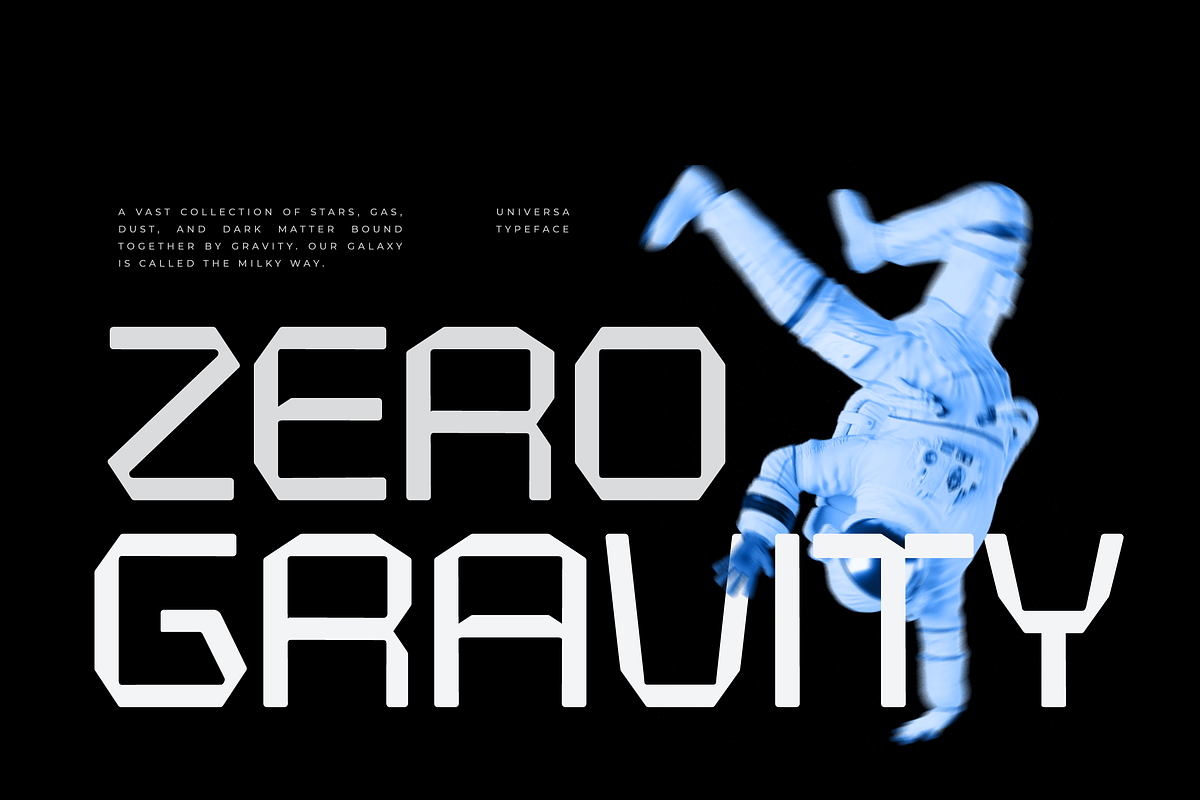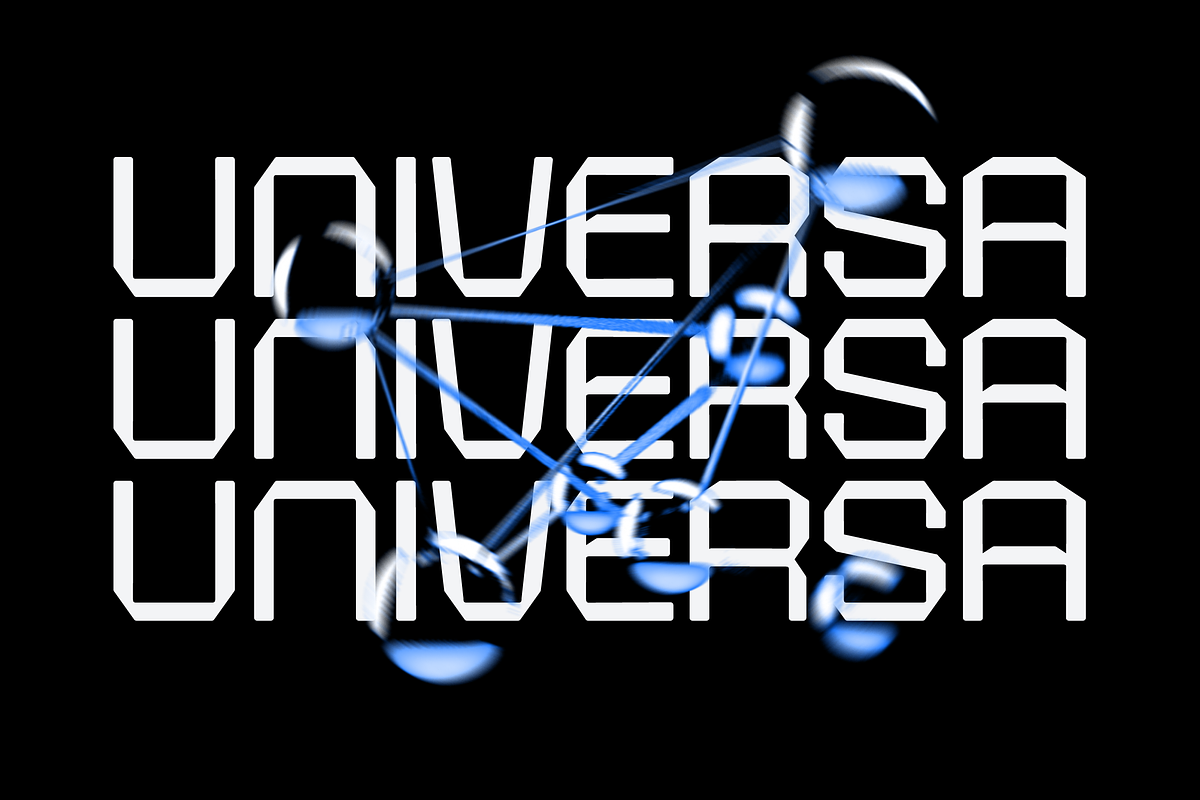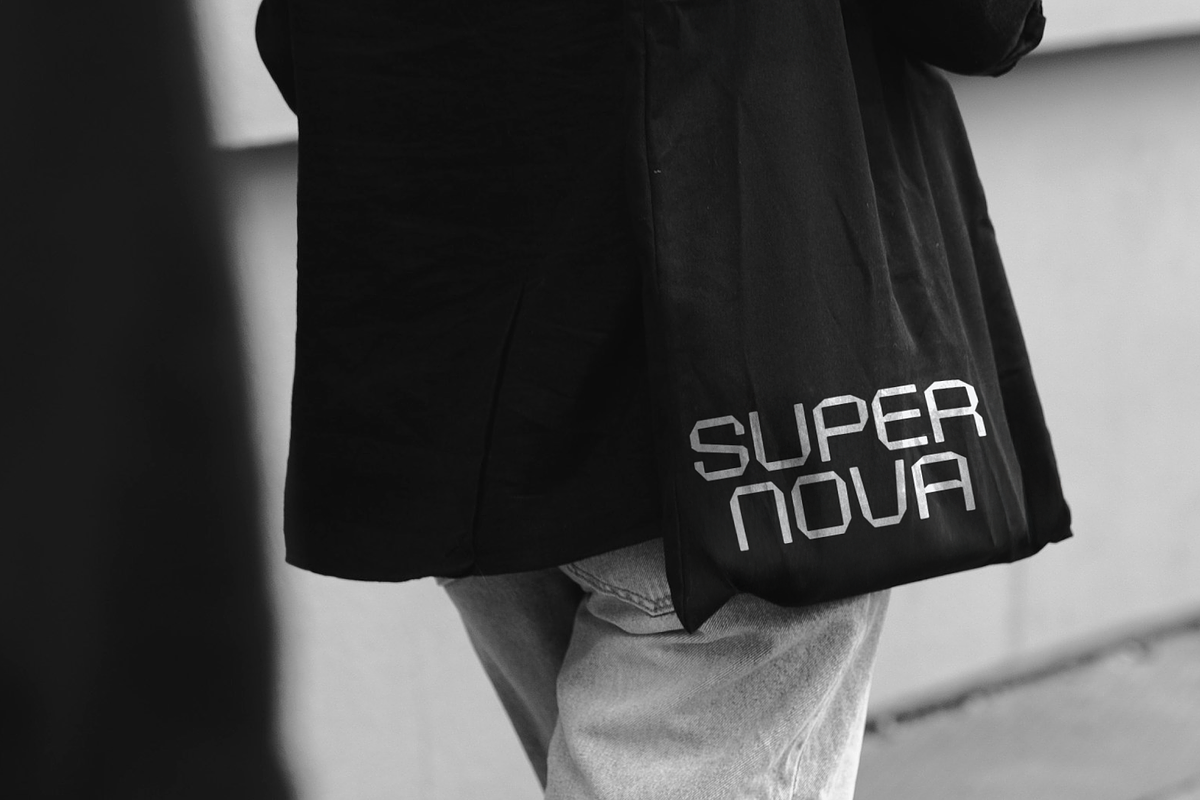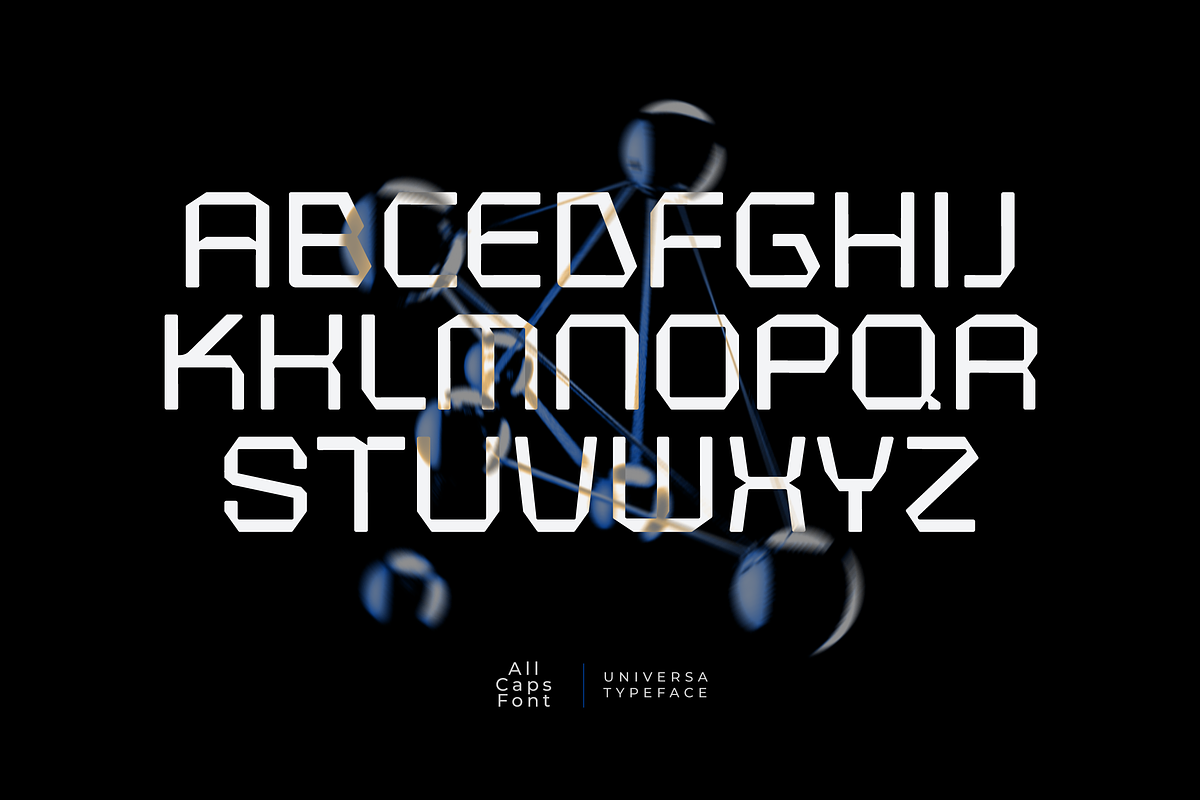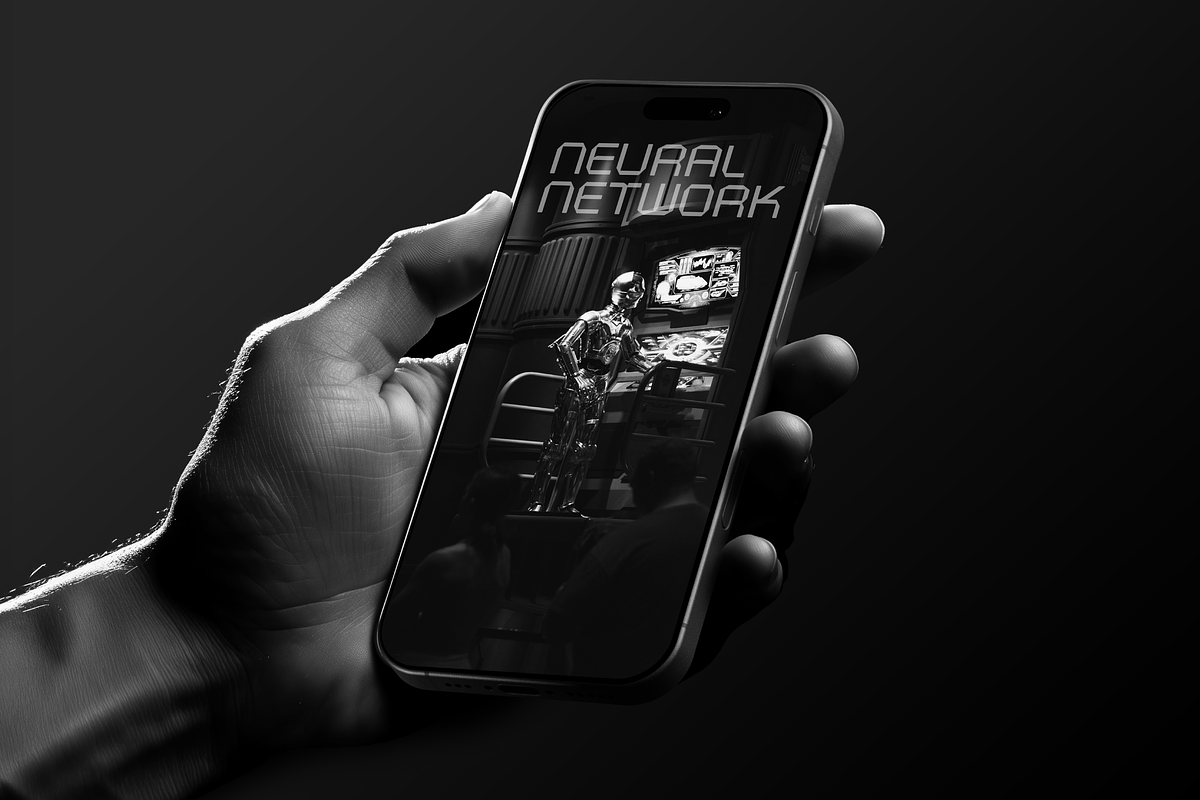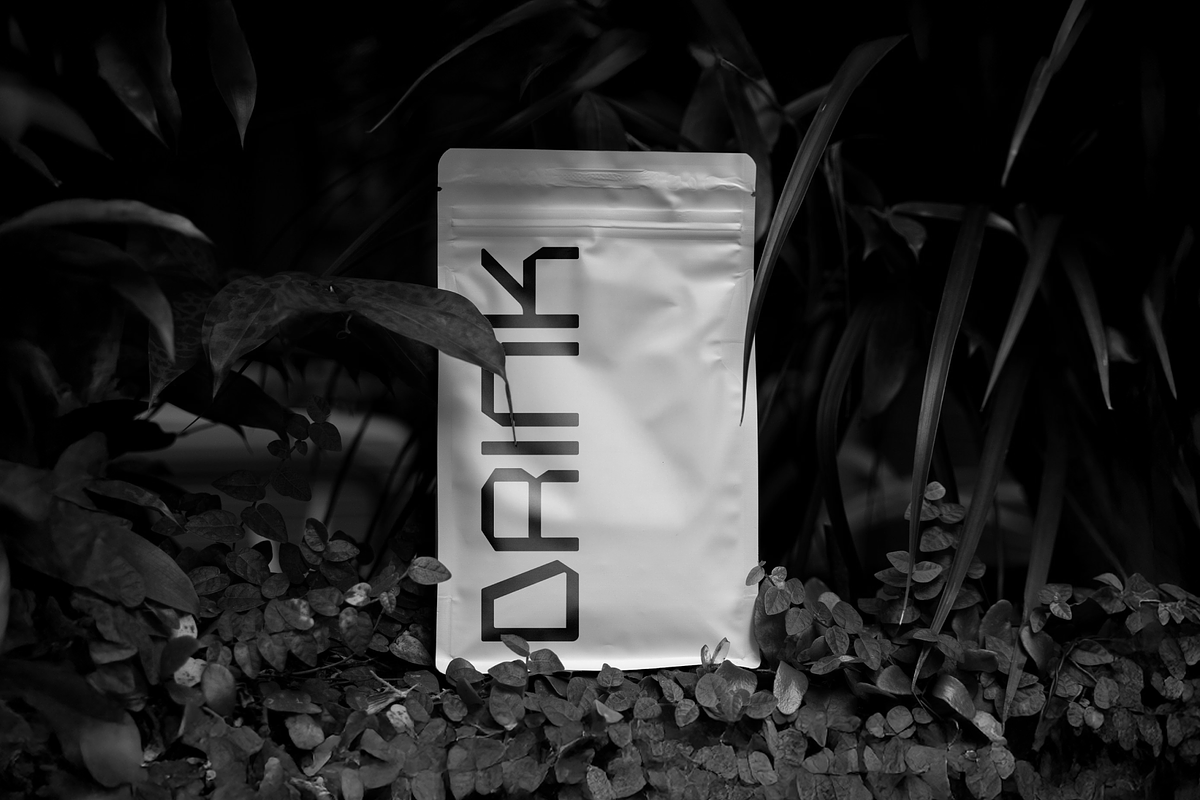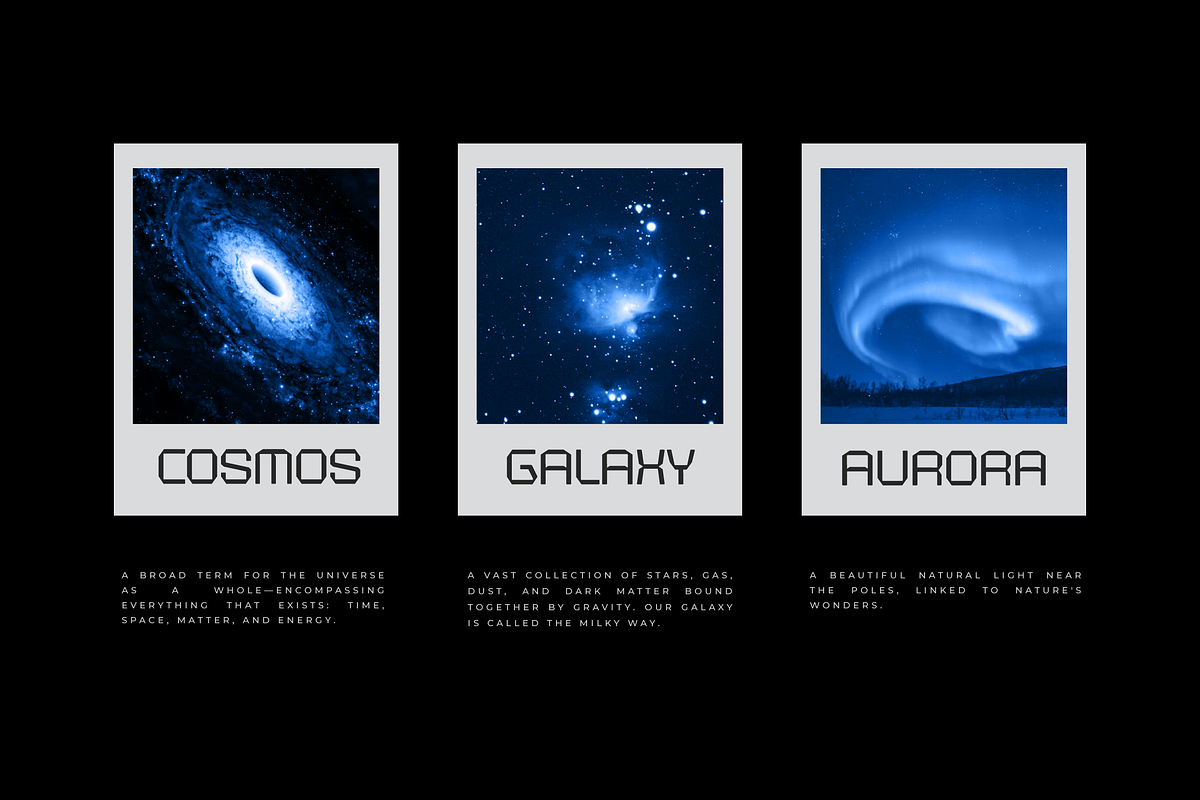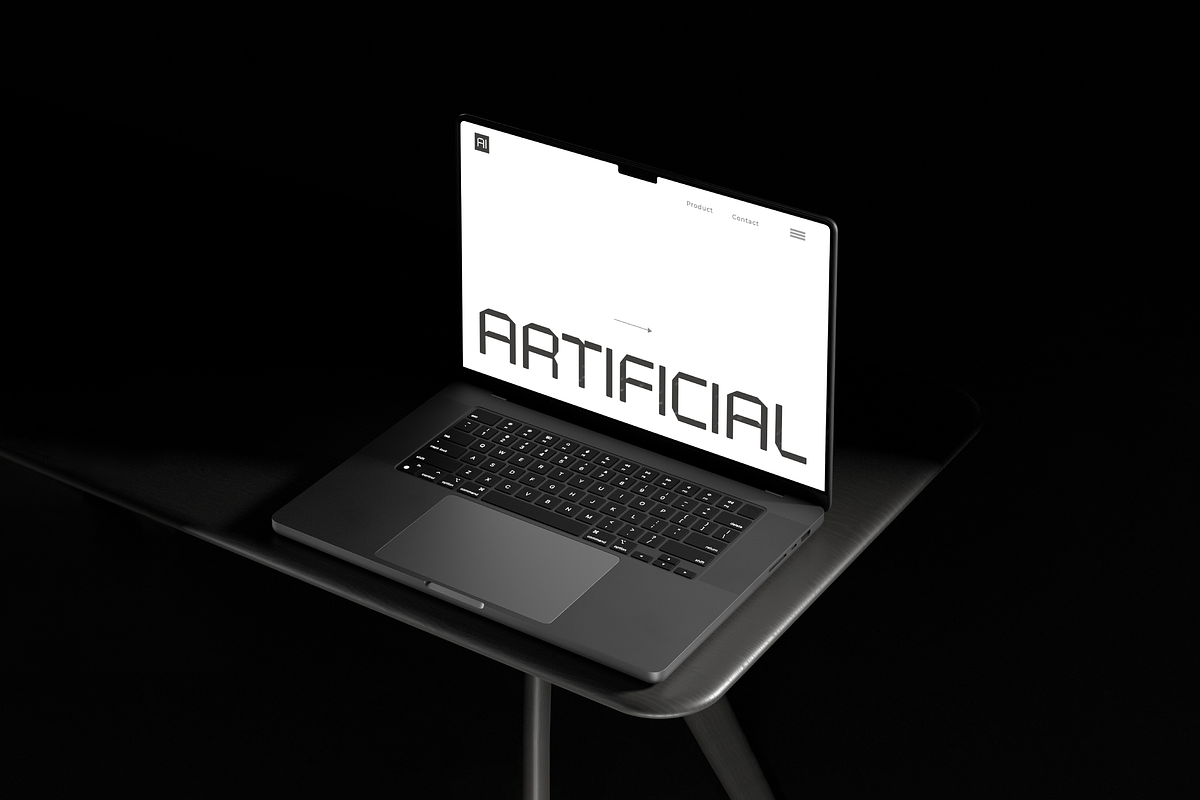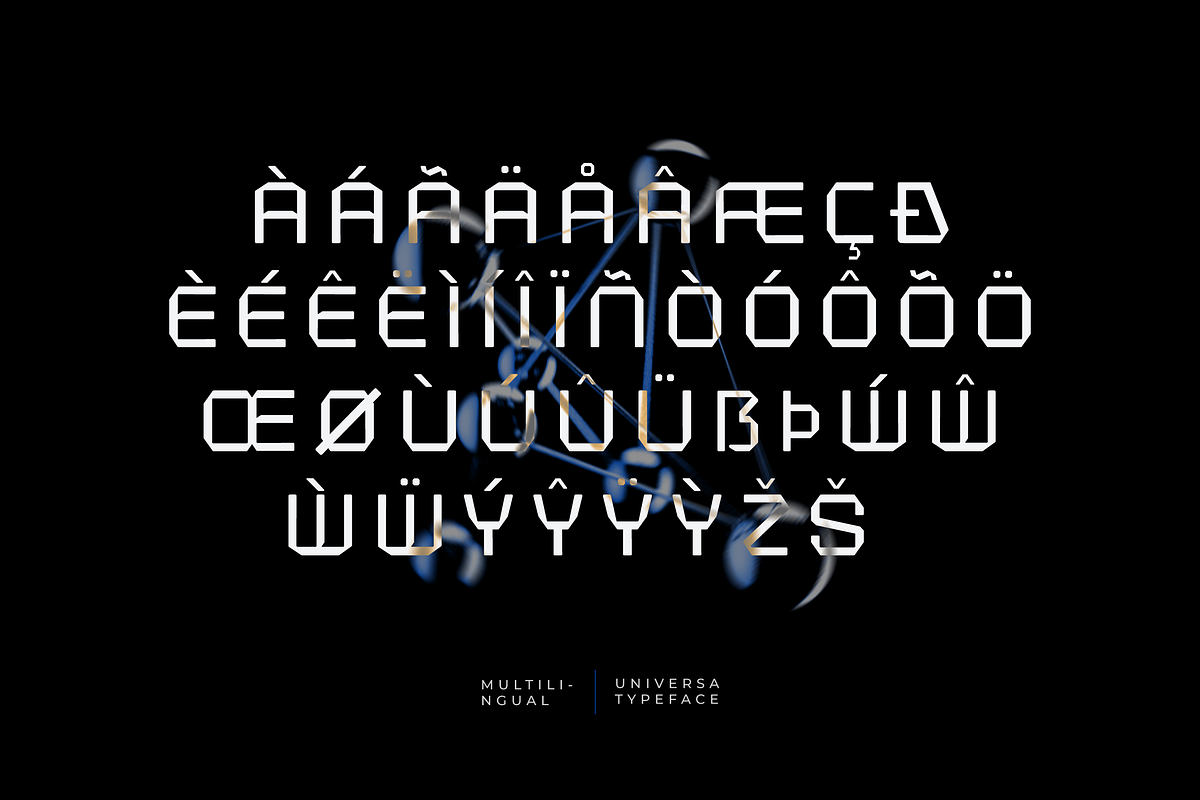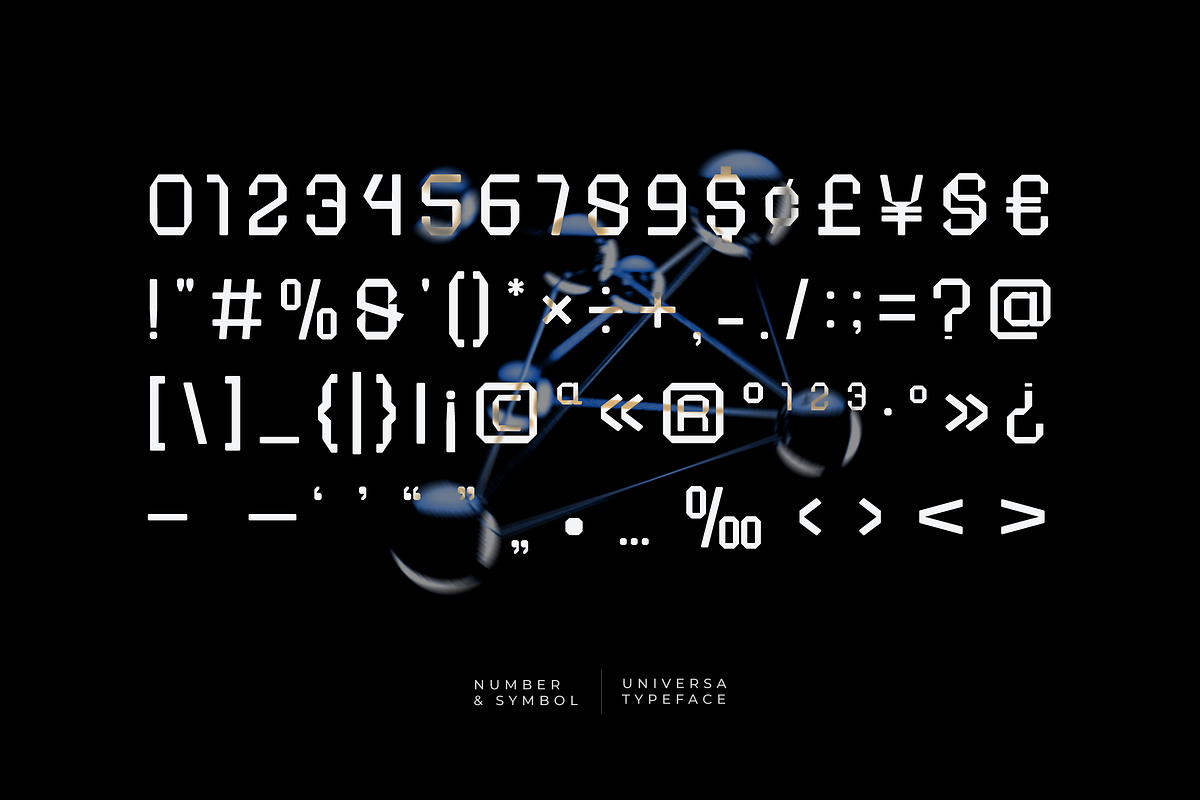
Universa - Futuristic Font
Universa is a display font with a unique futuristic impression, offering a distinctive and eye-catching design. It is the perfect choice for projects that require a modern look, especially in fields such as technology, astronomy, automotive, and more. Its sleek, contemporary style ensures that it stands out in any design, providing a clean and cutting-edge appearance that aligns with the latest trends and innovations.
- AllCaps Font
- And multilingual